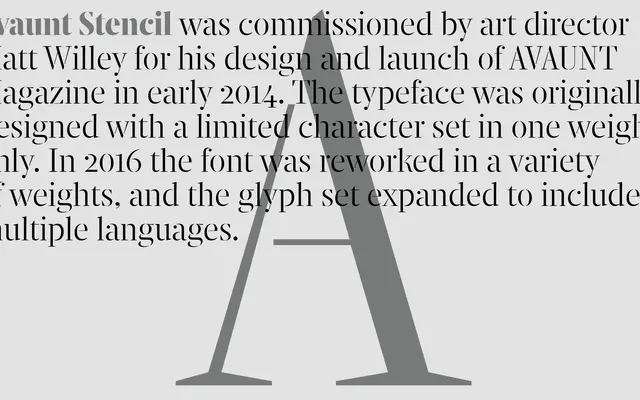
Avaunt Stencil
A2-Type · 2014
Avaunt Stencil specimen from A2-Type
A stencil serif commissioned by art director Matt Willey for AVAUNT Magazine in 2014, later expanded into five weights with broader language support.
Originally drawn in a single weight with a limited character set for Matt Willey's design of AVAUNT Magazine, the family was reworked in 2016 with five weights running from Light to Bold. The serif letterforms give the stencil construction an elegance that suits editorial display work rather than purely industrial or military contexts. Language support was expanded alongside the weight range, making it more viable beyond its original commission.
A stencil typeface with serif letterforms, designed for magazine display use. The stencil cuts give it a functional-industrial character while the underlying serif structure keeps it elegant.